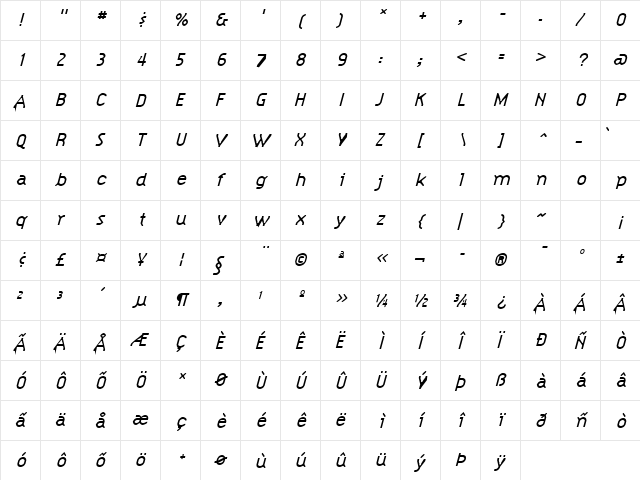
HypeStyle Italic
Design Context for HypeStyle Typeface
HypeStyle offers clean, dependable letterforms without strong stylistic allegiance, making it a practical choice for designers who need flexibility. The dynamic lean of this cut emphasises speed and emphasis in any layout.
Pro Tip: Use HypeStyle for emphasis, pull quotes, and subheadings where its slanted energy can add rhythm to the layout.